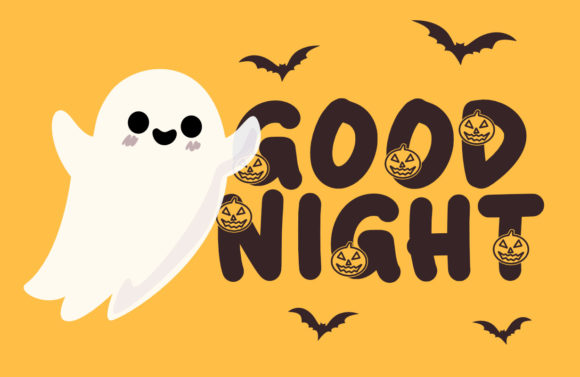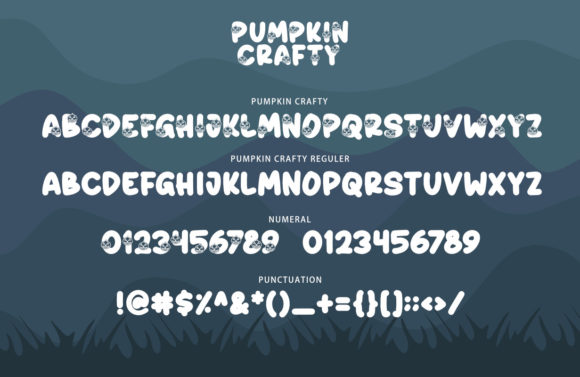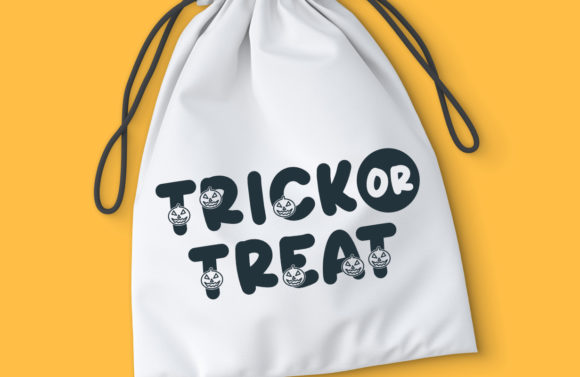
Introduction to Pumpkin Crafty Font
Pumpkin Crafty is a cute and spooky decorative font.
It embodies playfulness and authenticity and is the perfect choice for any children activity or school project .
Pumpkin Crafty Font offers exceptional quality and versatility, making it a valuable addition to your design toolkit. Whether you’re creating for personal projects or commercial use, Pumpkin Crafty Font delivers professional results.